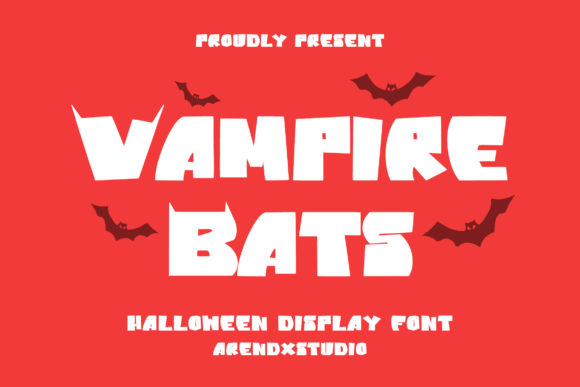
Welcome to the realm of captivating type, where Vampire Bats Font emerges as a masterpiece of typographic enchantment. This display font, designed by the skilled hands of Arendxstudio, is not just another font; it's an invitation to unleash your creativity.
Step into a world of visual intrigue, where Vampire Bats Font dances across your designs with a unique and quirky charm. Its carefully crafted glyphs and effortless swashes, accessible through PUA encoding, grant you the power to weave enchanting stories with every letter you type.
Picture this: Your Halloween designs adorned with the alluring curves and sharp angles of Vampire Bats Font. Trick-or-treaters will marvel at the playful yet sophisticated aura it exudes. Each stroke of the pen, each meticulously placed curve, evokes a sense of mystery and wonder that will leave a lasting impression.
The magic of Vampire Bats Font extends beyond mere aesthetics. It's a font that sparks imagination, ignites creativity, and empowers you to create designs that resonate with your audience. Let your imagination soar as you craft logos that demand attention, social media posts that capture hearts, and marketing materials that leave an indelible mark.
This display font is more than just a collection of letters; it's a tool for self-expression, a catalyst for innovation, and a key to unlocking the full potential of your creative vision. Embrace the allure of Vampire Bats Font and watch your designs transform into works of art that captivate, inspire, and leave an everlasting legacy.